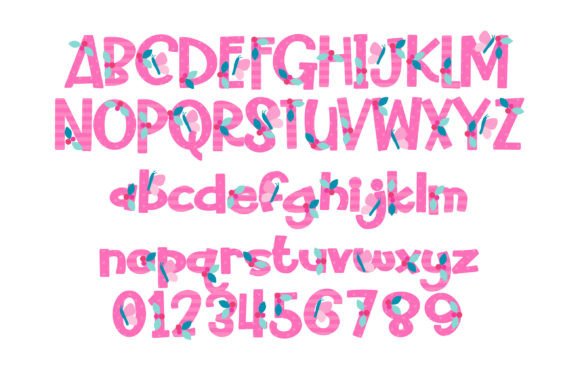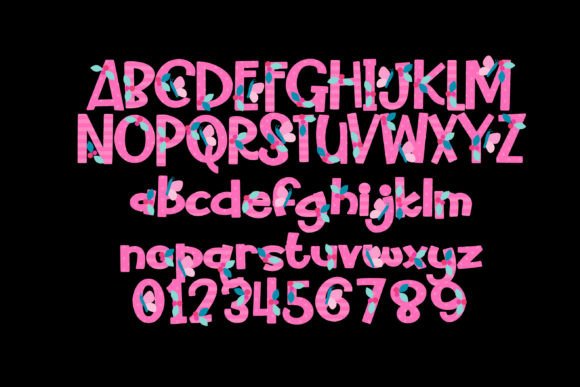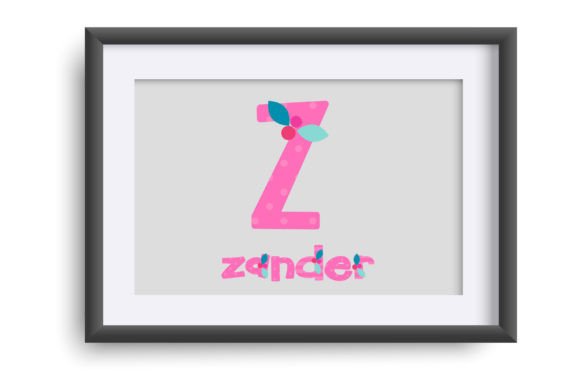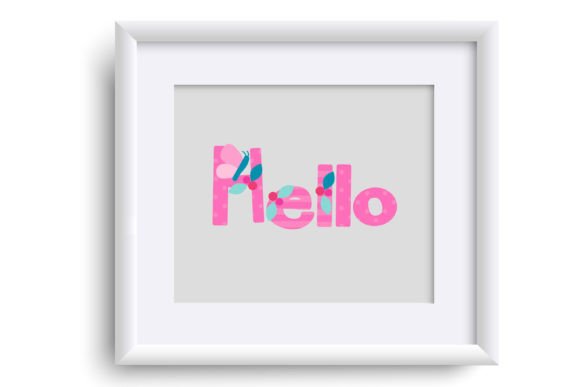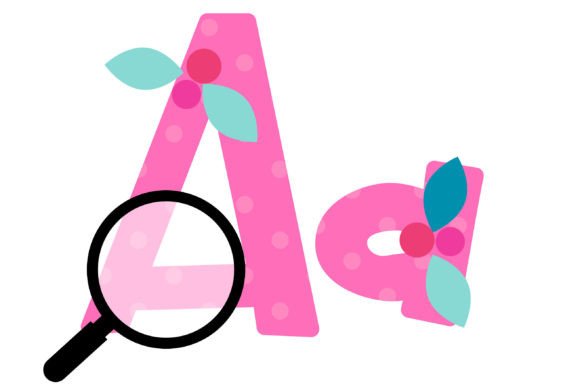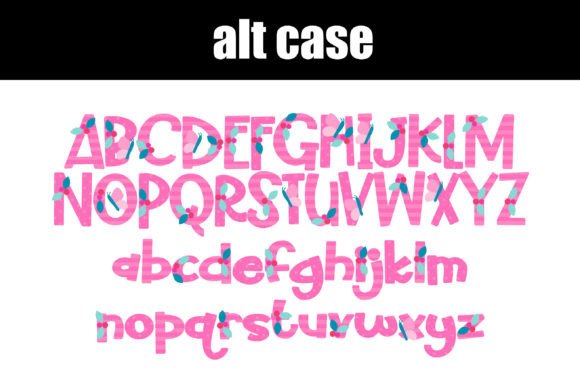
Berry Pink Font: Add a Touch of Whimsy to Your Designs
Are you looking for a unique and eye-catching font to elevate your designs? Look no further than the Berry Pink Font! This full-color font features pink berries throughout, adding a touch of whimsy and playfulness to any project. In this article, we’ll take a closer look at the Berry Pink Font, its features, and how you can use it to take your designs to the next level.
What is Berry Pink Font?
The Berry Pink Font is a pink patterned font that features pink berries throughout. It’s a fun and colorful font that’s perfect for designers and crafters who want to add a touch of personality to their work. The font comes in a full-color version, making it ideal for use in a variety of projects, from digital designs to print materials.
Key Features of Berry Pink Font
So, what makes the Berry Pink Font so special? Here are some of its key features:
- Full-color font: The Berry Pink Font is a full-color font, which means it features a range of colors that can be used to add depth and interest to your designs.
- Pink berries: The font features pink berries throughout, adding a touch of whimsy and playfulness to your designs.
How to Use Berry Pink Font
The Berry Pink Font is easy to use and can be incorporated into a variety of projects. Here are some ideas to get you started:
- Digital designs: Use the Berry Pink Font to add a touch of personality to your digital designs, such as social media graphics, blog posts, and email newsletters.
- Print materials: The font is also perfect for use in print materials, such as brochures, flyers, and business cards.
- Crafting projects: If you’re a crafter, you can use the Berry Pink Font to add a personal touch to your projects, such as handmade cards, scrapbook pages, and DIY gifts.
Tips for Using Berry Pink Font
Here are some tips for using the Berry Pink Font effectively:
- Use it sparingly: While the Berry Pink Font is fun and playful, it can be overwhelming if used too much. Use it sparingly to add a touch of personality to your designs.
- Pair it with other fonts: The Berry Pink Font can be paired with other fonts to create a unique and interesting look. Try pairing it with a bold font for a striking contrast.
- Experiment with colors: While the font features pink berries, you can experiment with different colors to create a unique look. Try using the alt version of each letter in a different color to add some interest.
The Berry Pink Font is a fun and playful font that’s perfect for designers and crafters who want to add a touch of personality to their work. With its full-color design and pink berries throughout, it’s sure to add a touch of whimsy to any project. Whether you’re working on digital designs, print materials, or crafting projects, the Berry Pink Font is a great choice. So why not give it a try and see how it can elevate your designs?